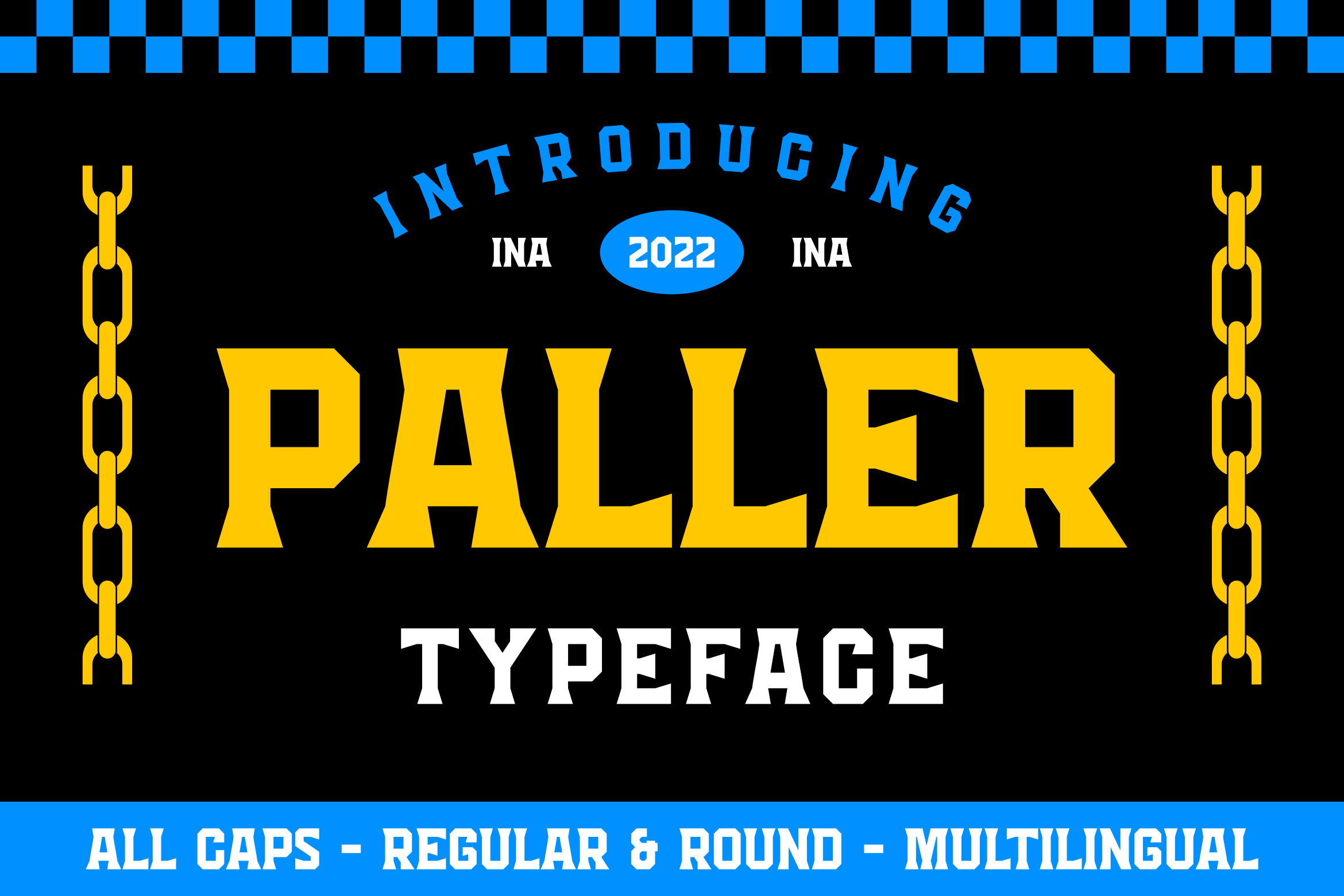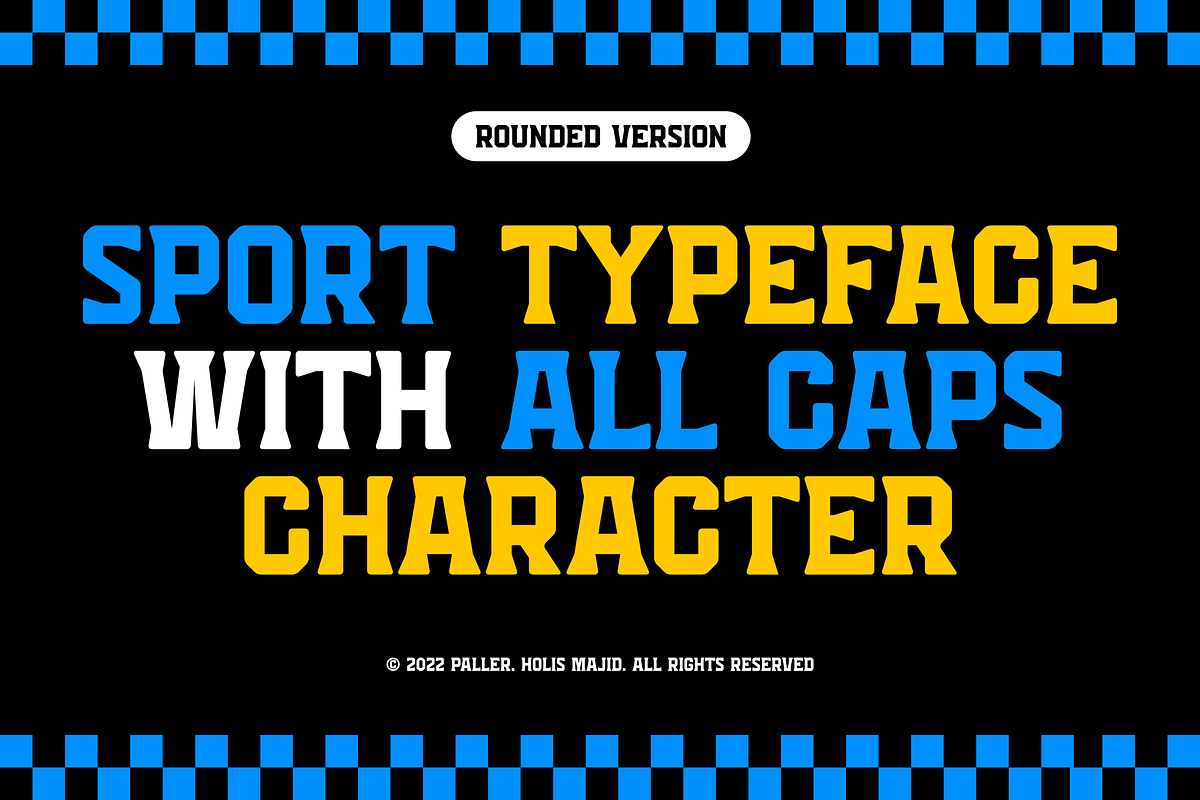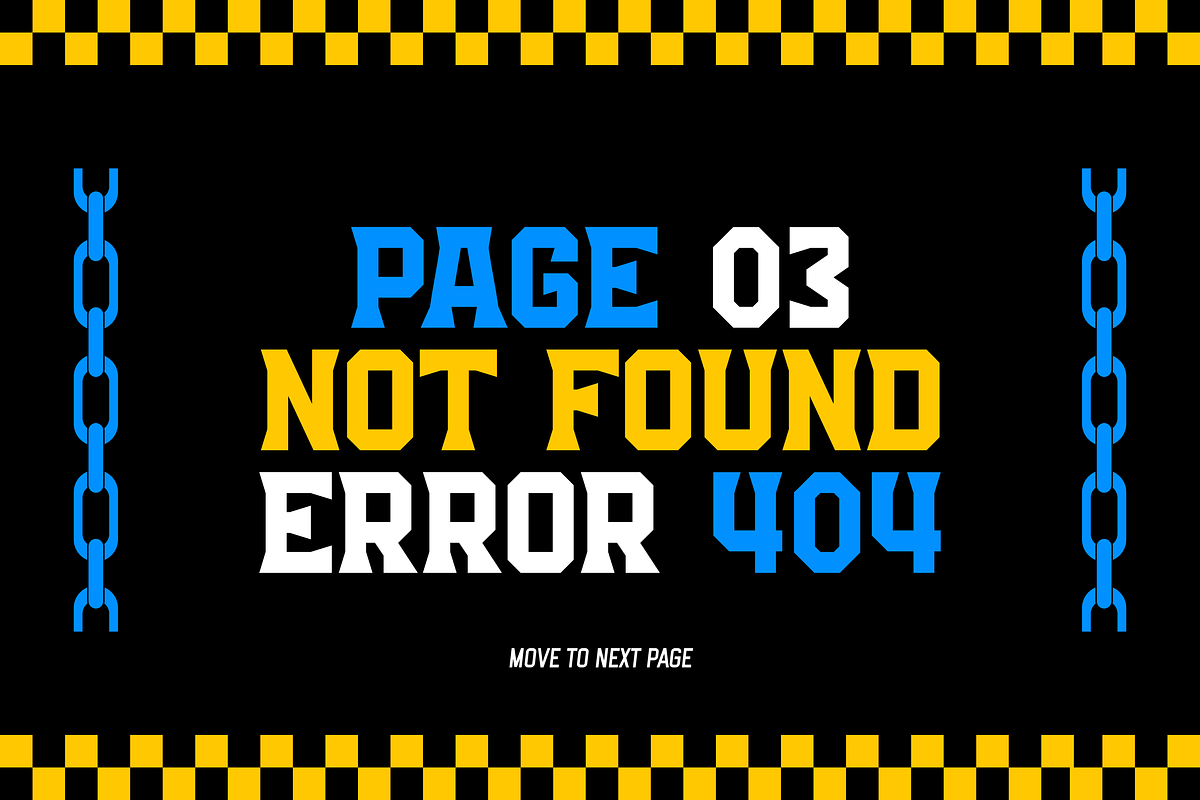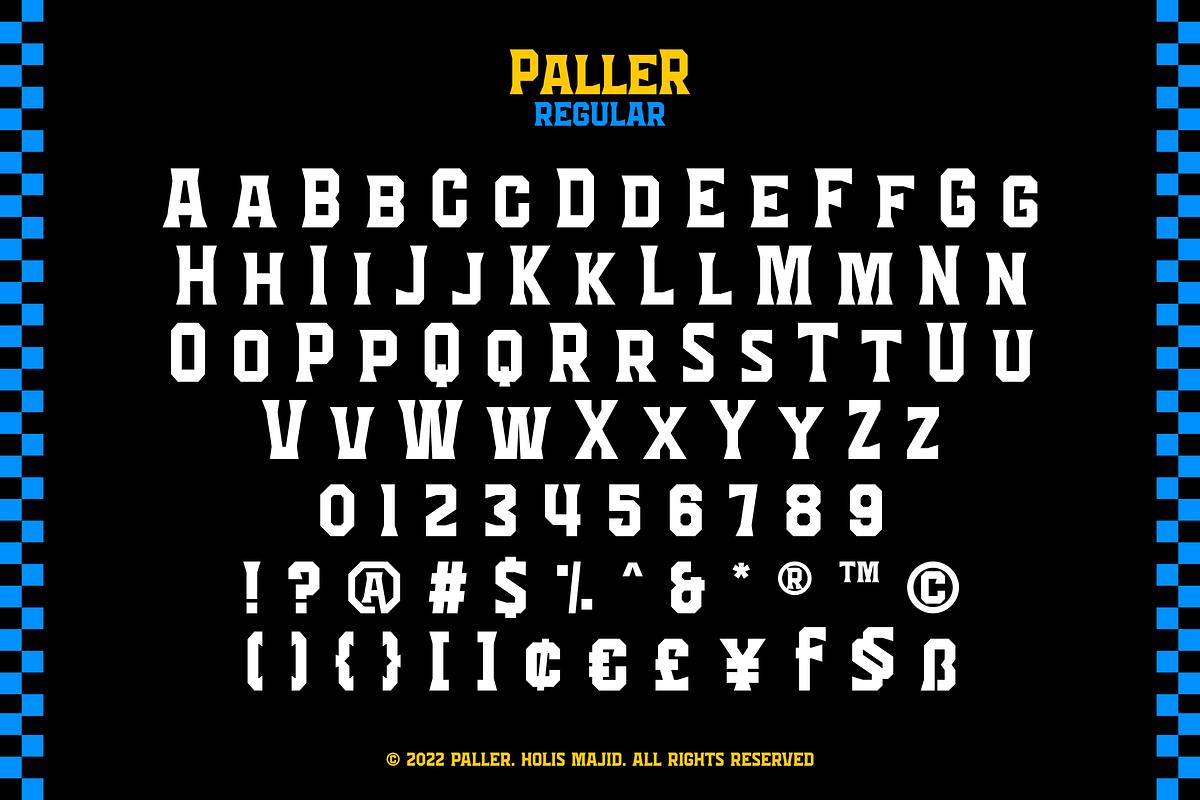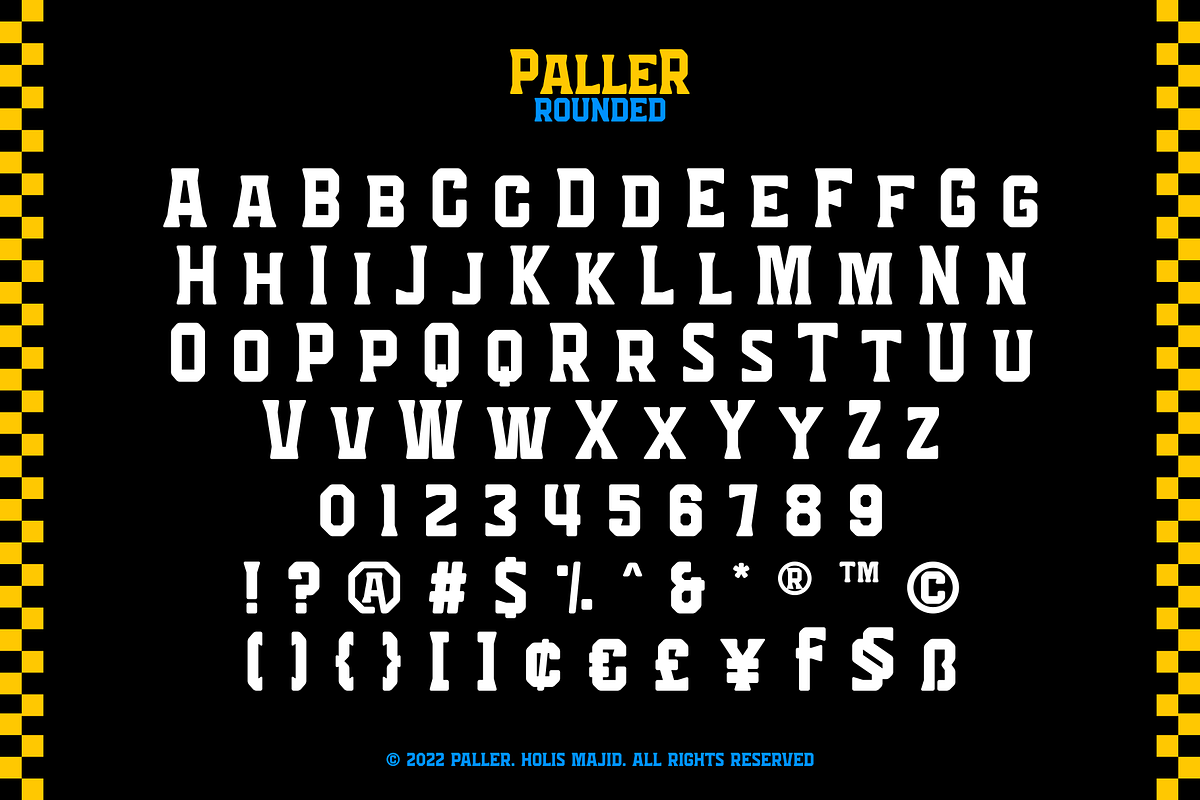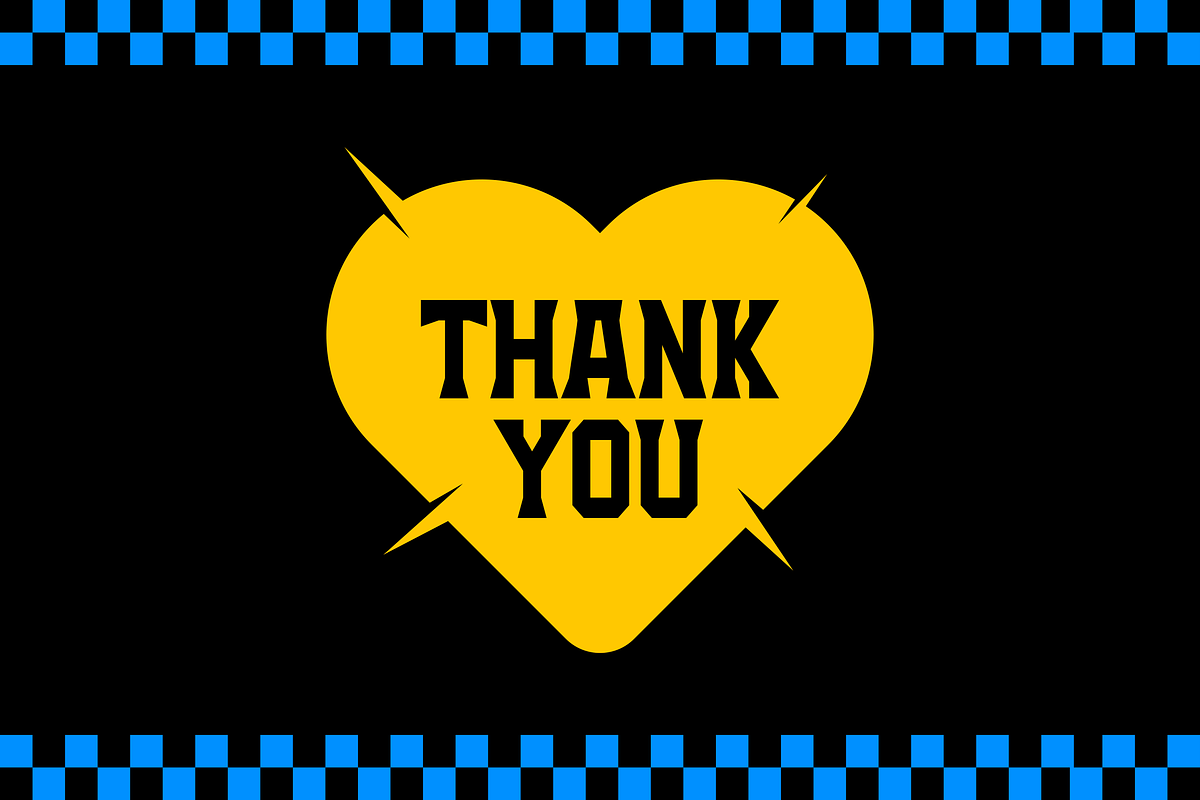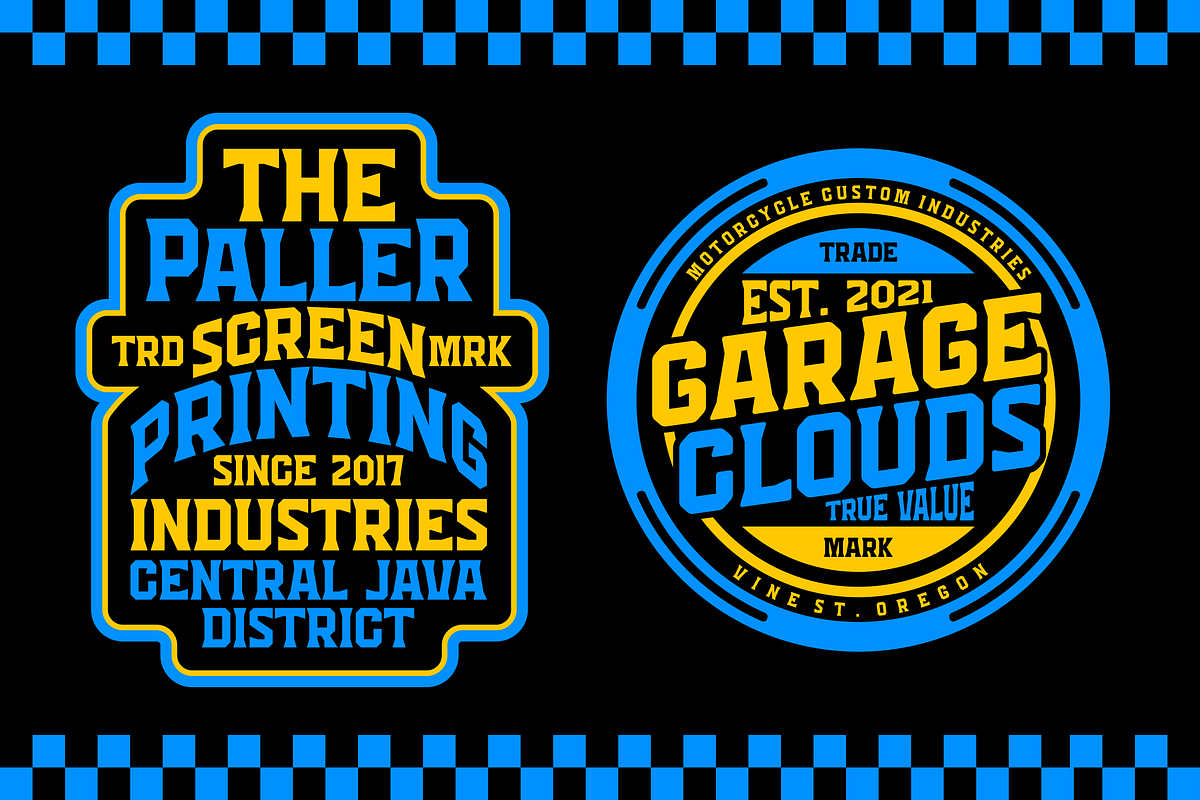
Paller Typeface
Paller is typeface all caps font with a masculine impression, and has 2 available regular styles that are sharp and round at the ends for each character, suitable for signboards, badge designs, logo designs, poster designs and other.
- All caps
- Numeral
- Symbol